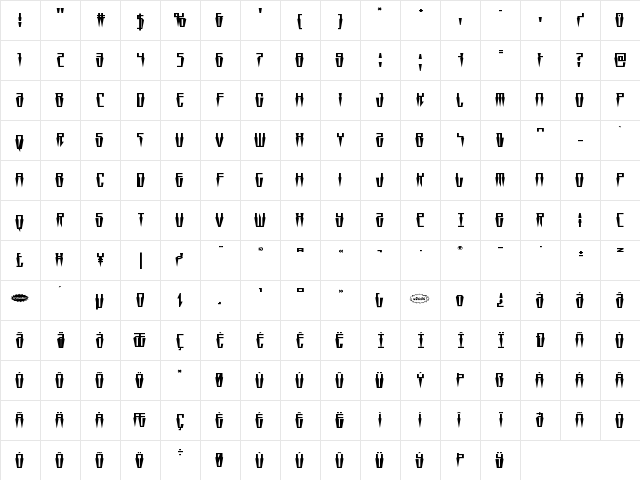
Swordtooth Squat Regular
Design Context for Swordtooth Squat Typeface
Swordtooth Squat is a composed and adaptable typeface that performs quietly and consistently across a wide range of design contexts.